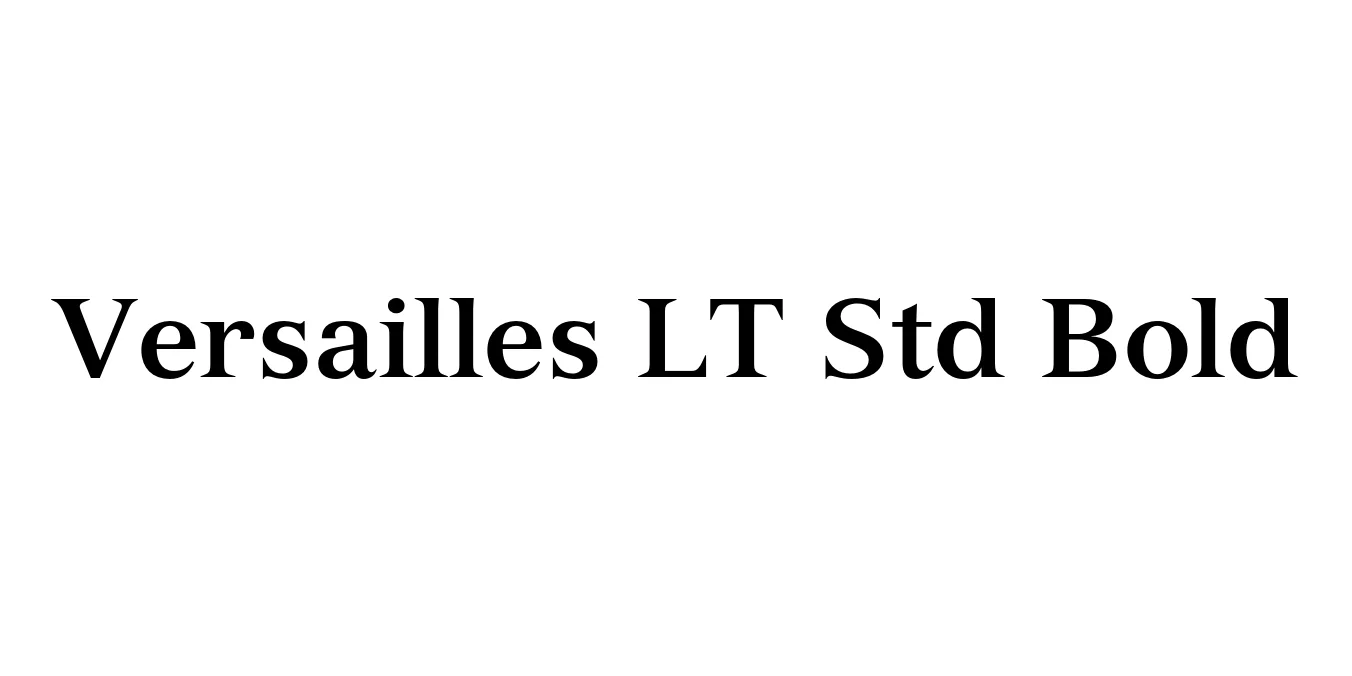
Versailles LT Std Bold
Designed by Adrian Frutiger
Versailles was designed by the legendary Swiss typographer Adrian Frutiger in 1984 for the Linotype foundry. It represents a refined, neoclassical serif style that occupies the space between transitional and modern typefaces. Characterized by its elegant proportions, sharp serifs, and high contrast between thick and thin strokes, it remains a sophisticated choice for high-end typography and professional typesetting.
The Bold weight of Versailles LT Std offers a significant presence while maintaining the delicate grace of the original design. It is particularly effective for headlines, branding, and luxury packaging where a sense of timelessness and European elegance is desired. Frutiger’s meticulous attention to legibility and spacing ensures that the font remains exceptionally professional across both print and digital media formats.
Versailles LT Std Bold Best Uses
Perfect for bold, commanding titles in magazines and high-end editorial layouts.
Ideal for luxury brands and corporate identities seeking a classic and established feel.
Conveys a premium image for high-end retail products and cosmetic brands.
Excellent for book covers, feature articles, and sophisticated print media.